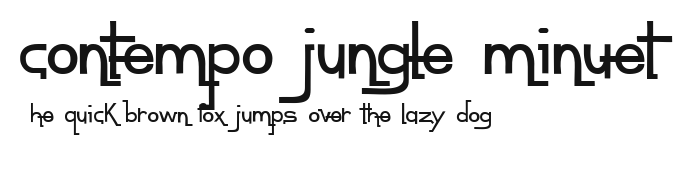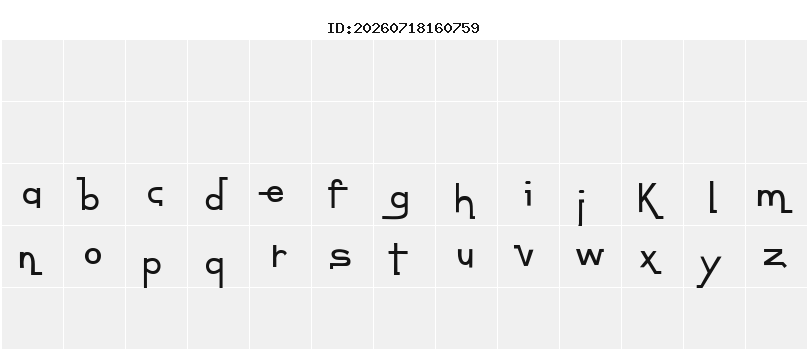
About contempo jungle minuet.ttf
contempo jungle minuet.ttf is a modern, elegant sans-serif font designed for ultimate readability and visual harmony. Perfect for branding, headlines, web design, and print materials.